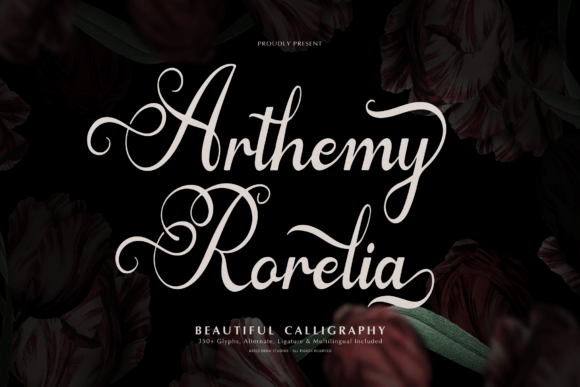
Introducing Arthemy Rorelia: The Elegant Calligraphy Font for Your Creative Projects
Are you a designer or crafter looking for a beautiful calligraphy font to elevate your projects? Look no further than Arthemy Rorelia, a stunning font from Denustudios that is perfect for a wide range of applications. In this article, we’ll explore the features and benefits of Arthemy Rorelia, and show you how to make the most of this gorgeous font in your designs.
What is Arthemy Rorelia?
Arthemy Rorelia is a beautiful calligraphy font designed by Denustudios, a team of talented designers passionate about creating high-quality fonts for creative professionals. This elegant font is perfect for adding a touch of sophistication and style to any project, from logos and branding materials to homeware designs, product packaging, and more.
Features of Arthemy Rorelia
So, what makes Arthemy Rorelia so special? Here are just a few of its key features:
- Elegant Calligraphy Style: Arthemy Rorelia boasts a beautiful, flowing calligraphy style that adds a touch of elegance to any project.
- Versatile: This font is perfect for a wide range of applications, including logos, branding projects, homeware designs, product packaging, mugs, quotes, posters, shopping bags, t-shirts, book covers, name cards, invitation cards, greeting cards, labels, photography, watermarks, and more.
- High-Quality Design: Arthemy Rorelia is designed with precision and attention to detail, ensuring a crisp and clean appearance in any project.
Benefits of Using Arthemy Rorelia
So, why should you choose Arthemy Rorelia for your next project? Here are just a few benefits of using this gorgeous font:
- Adds Elegance and Sophistication: Arthemy Rorelia’s elegant calligraphy style adds a touch of sophistication and style to any project.
- Enhances Brand Identity: This font is perfect for logos, branding projects, and other marketing materials, helping to create a strong and cohesive brand identity.
- Perfect for Creative Projects: Arthemy Rorelia is ideal for crafters, designers, and artists looking to add a touch of elegance to their work.
How to Use Arthemy Rorelia in Your Projects
Using Arthemy Rorelia in your projects is easy! Here are a few tips to get you started:
- Logos and Branding: Use Arthemy Rorelia as a logo font or for branding projects, such as business cards, letterheads, and more.
- Homeware Designs: Add a touch of elegance to your homeware designs, such as cushions, mugs, and wall art.
- Product Packaging: Use Arthemy Rorelia to create eye-catching product packaging that stands out on store shelves.
- Digital Projects: This font is also perfect for digital projects, such as social media graphics, blog posts, and more.
Tips for Getting the Most Out of Arthemy Rorelia
Here are a few final tips for getting the most out of Arthemy Rorelia:
- Experiment with Different Sizes and Colors: Try out different sizes and colors to see how Arthemy Rorelia looks in different contexts.
- Pair with Other Fonts: Experiment with pairing Arthemy Rorelia with other fonts to create a unique and eye-catching look.
- Use in Combination with Images: Use Arthemy Rorelia in combination with images to create stunning visual effects.
In conclusion, Arthemy Rorelia is a beautiful calligraphy font that is perfect for designers and crafters looking to add a touch of elegance and sophistication to their projects. With its versatile design, high-quality construction, and wide range of applications, this font is sure to become a favorite in your design arsenal.